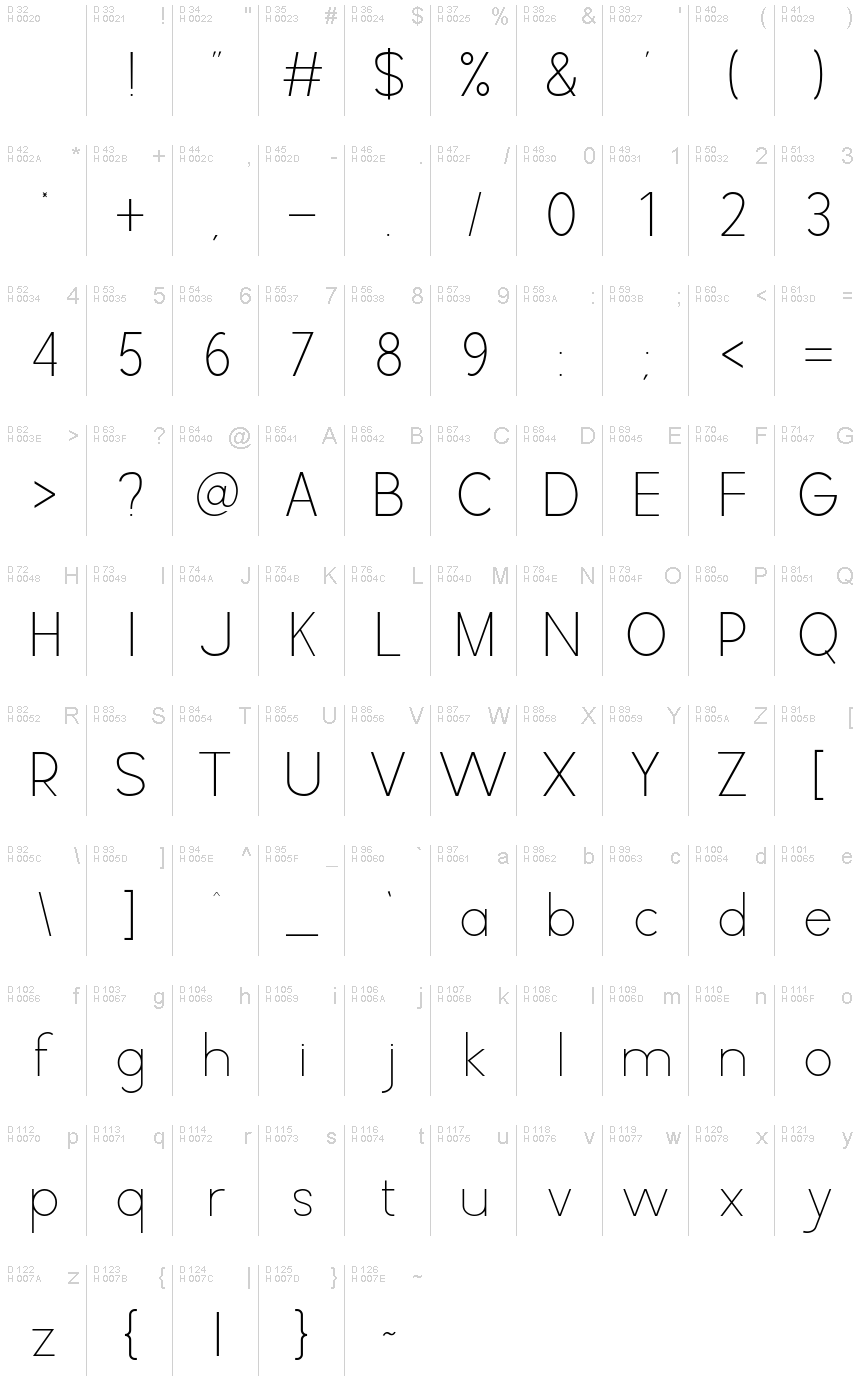
Sweet Bread Light
The Sweet Bread Light font, designed by Rvandtype, exudes a soft, elegant charm with its delicate, sans-serif lines. This light-weighted typeface boasts a graceful, almost calligraphic quality, lending a sense of refinement and sophistication to any design. Its subtle curves and balanced proportions create a visually appealing and harmonious aesthetic, making it a compelling choice for a wide range of applications.
This versatile font can elevate various design projects, from high-end branding and editorial layouts to delicate invitations and packaging. Its clean, modern sensibilities make it a versatile choice, while its distinctive personality adds a touch of understated elegance that is sure to captivate audiences.